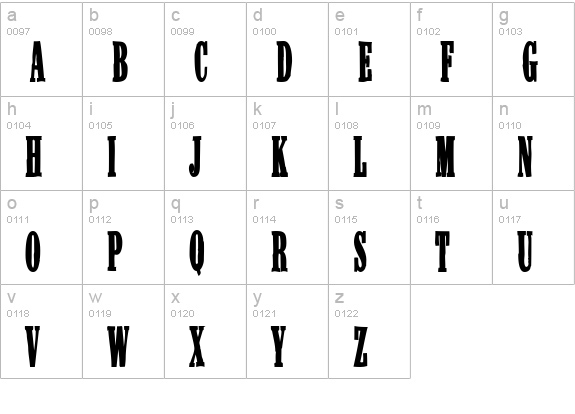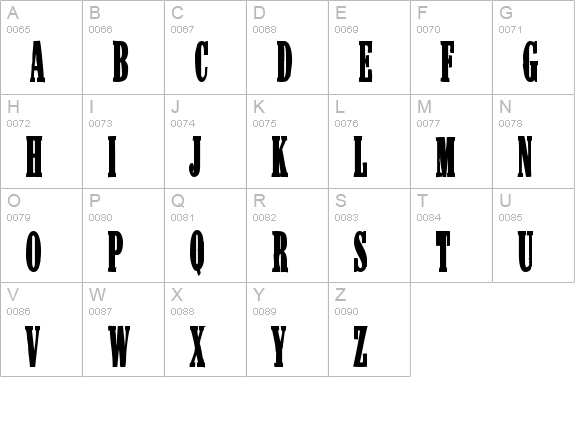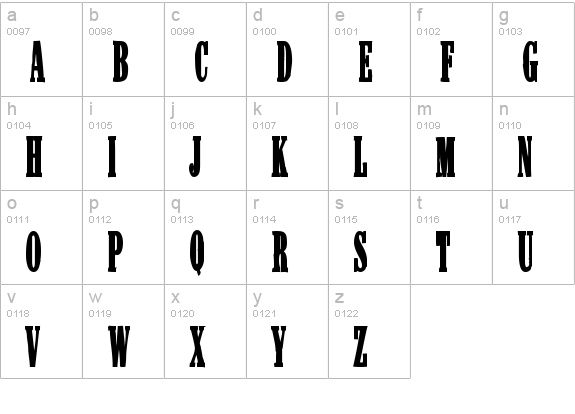
NakedLunch Font Details
NakedLunch font is a stylish and modern typeface that exudes sophistication and elegance. With its clean lines and sleek design, this font is perfect for adding a touch of sophistication to any project. The sleek curves and sharp angles of NakedLunch font make it a versatile choice for a variety of design applications, from branding to editorial design. What sets NakedLunch font apart is that it is not only visually appealing but also free to download. That's right, you can get your hands on this stunning font at no cost on FontsMarket.com. Whether you're a designer looking to elevate your projects or a business owner seeking a fresh look for your branding, NakedLunch font is the perfect choice. Download it today and start creating stunning designs that will leave a lasting impression.